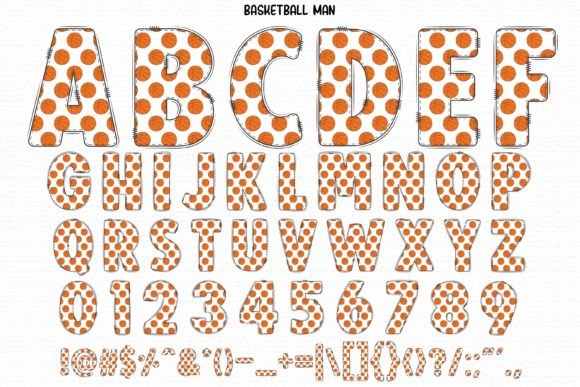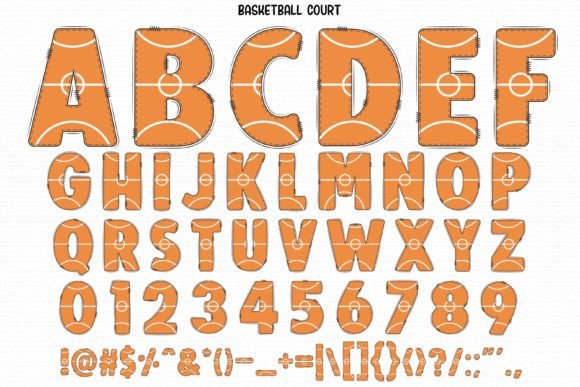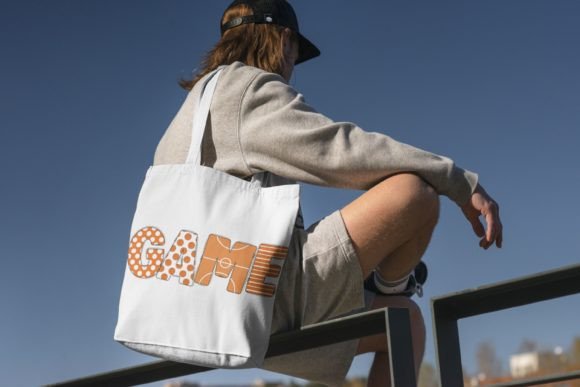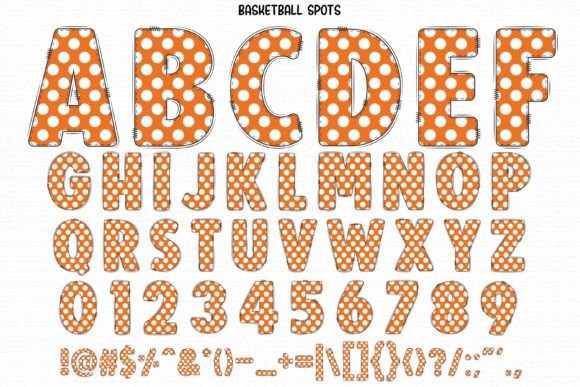
The Slam Dunk of Fonts: Basketball Mania
Hey there, fellow designers and creative enthusiasts! I’m sure you’ve been there – working on a project, pouring your heart and soul into it, and then suddenly, you’re stuck. The design is almost perfect, but something’s missing. For me, that something was a font that screamed basketball. I was working on a project for a local sports brand, and I needed a font that would capture the energy and excitement of the game. That’s when I discovered Basketball Mania, a cool and bold color font that’s a total game-changer.
My First Impressions
I was immediately drawn to Basketball Mania’s unique style and versatility. The font is bold, colorful, and dynamic – perfect for any basketball-related design project. I knew right then and there that I had to share it with all of you!
- ✨ Bold and eye-catching: Basketball Mania is a font that demands attention. Its bold lines and vibrant colors make it perfect for headlines, titles, and any other design element you want to stand out.
- ✅ Versatile: This font is not just limited to basketball designs. You can use it for any project that requires a bold and dynamic look, such as sports, fitness, or even energetic and playful designs.
- 🎉 Colorful: Basketball Mania comes in a range of colors, making it easy to match your brand’s color scheme or add a pop of color to your design.
The Not-So-Good Stuff
- 🤔 Limited use cases: While Basketball Mania is a fantastic font, it’s not suitable for every design project. Its bold and playful style may not work well for more formal or professional designs.
- ⚠️ Legibility at small sizes: As with many bold fonts, Basketball Mania can be a bit tricky to read at small sizes. Make sure to test it out at different sizes to ensure it works for your project.
The Designer Inspiration Behind Basketball Mania
The story behind Basketball Mania is one of passion and creativity. The designer, inspired by the energy and excitement of basketball, set out to create a font that would capture the spirit of the game. With its bold lines, vibrant colors, and dynamic style, Basketball Mania is the perfect font for any design project that needs a bit of sports flair.
| Font Name | Basketball Font |
| Author | Doodle Alphabet |
Q: What type of designs is Basketball Mania best suited for?
A: Basketball Mania is perfect for designs related to basketball, sports, fitness, and energetic and playful designs.
Q: Is Basketball Mania available in different languages?
A: Basketball Mania may not support all languages, but it does come with a range of glyphs and OpenType features that can be used to create unique characters.